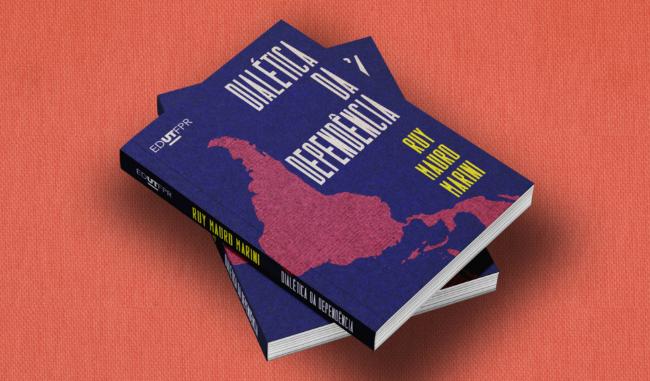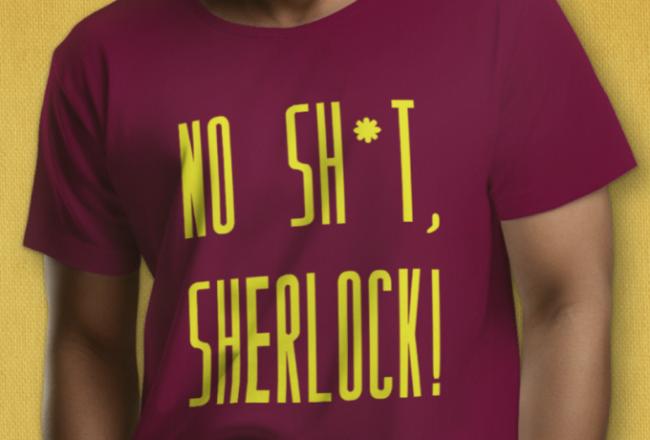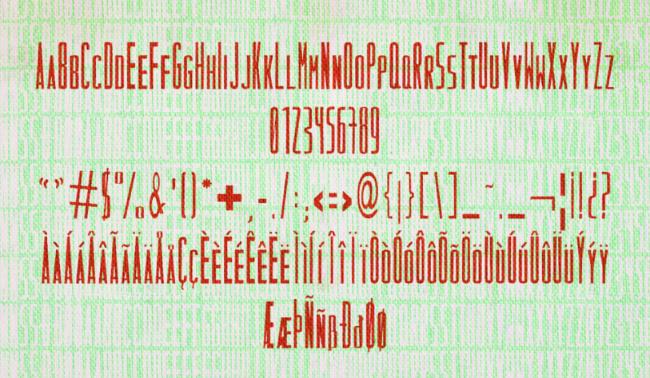
Free Font Of The Day : Canalha
Canalha is not your average typeface. It’s gritty, raw, and unapologetically bold. Designed for those who want to make a statement, Canalha thrives in edgy design work — whether it’s for music posters, underground fashion, or rebellious branding projects.
The font blends vintage street-style lettering with a modern, hand-drawn edge. Each character feels custom-built, full of attitude and movement. It doesn’t try to be neat or quiet — and that’s exactly its charm. If you’re after a clean and corporate vibe, Canalha isn’t for you. But if your project needs energy, personality, and a punch of visual noise, this font steps up.
Perfect for headlines, logos, and anything that screams “stand out,” Canalha doesn’t follow rules — it writes its own.